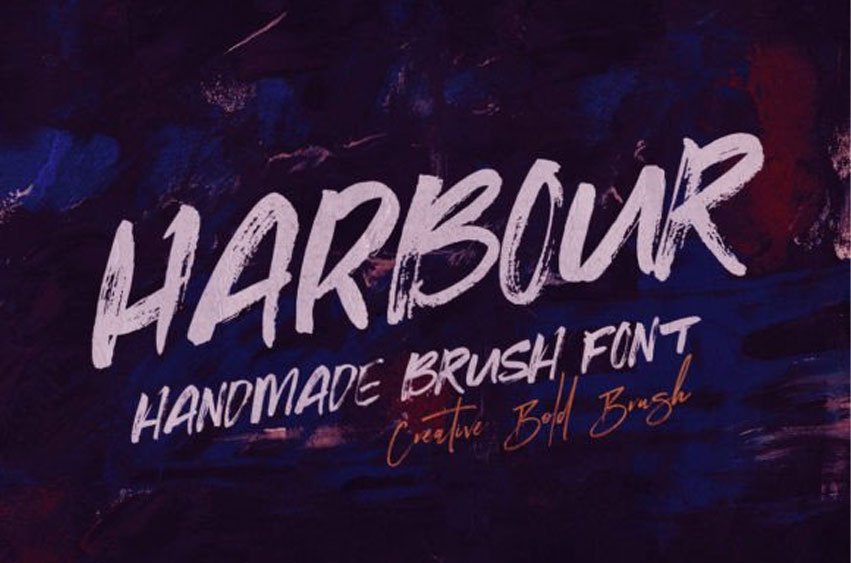
Harbour Font
Harbour Font is a funky and cool brush display font perfect for all your art projects.
It will add a fresh and unique touch to any design idea you might have!